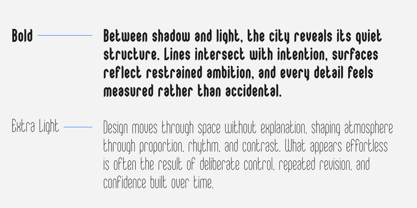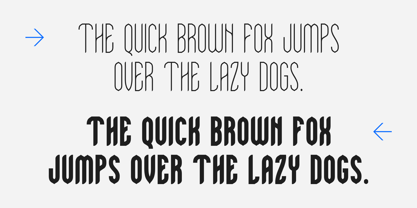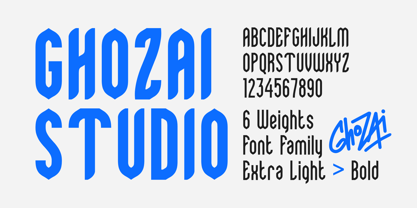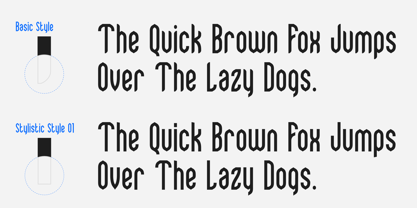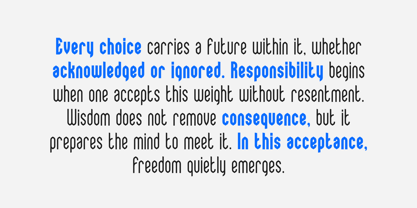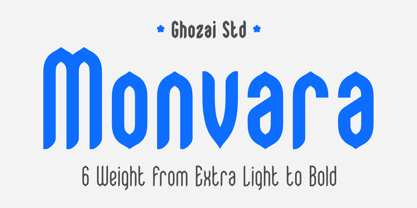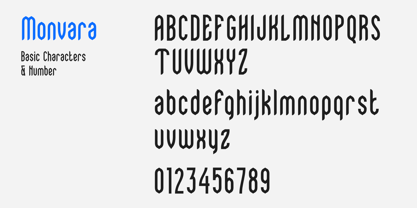
Monvara
by Ghozai Studio
The Monvara Font Family was designed by Manzur Ghozaali and published by Ghozai Studio. Monvara contains 6 styles and family package options. More about this family
Monvara is a tall grotesk-sans font family that offers 6 distinct weights, ranging from Extra Light to Bold. This extensive weight variety, combined with OpenType features and multilingual glyph support, ensures versatility for various languages and design requirements. Its modern, clean, and bold aesthetic makes Monvara perfect for a wide array of applications, including display, branding, signage, festival posters, sports, and more. Whether you're crafting impactful headlines, unique logos, or clear signage, Monvara provides both style and functionality. Its adaptability to different design styles makes it an excellent choice for any project that demands a bold and contemporary flair.
Designers: Manzur Ghozaali
Foundry: Ghozai Studio
Ghozai Studio is a design studio based in Jombang, Indonesia, founded by Manzur Ghozaali. We always try to create a high-quality diverse range of fonts that can be seamlessly integrated into any design project. We also believe that the process of creating a product should be enjoyable and fun. We know that when we have fun during the creation process, we can produce products that are more innovative and engaging for our customers.